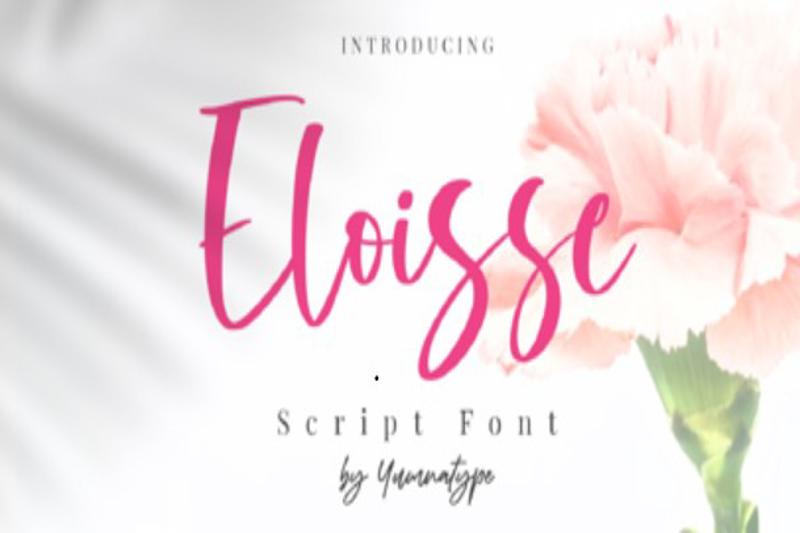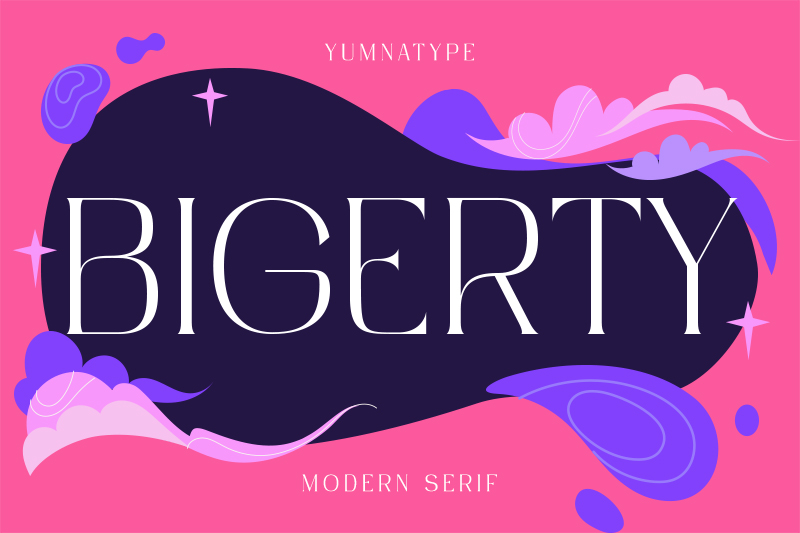
Elegant and Romantic Font for Wedding Invitations: 12 Best Picks
Have you ever seen a wedding invitation that impressed you? The secret often lies not in a complex design, but in the right choice of font for wedding invitations. The right font selection can create an elegant, romantic, or even luxurious feel that can impress the guest even in a quick glance.
Choosing a font for wedding invitations isn’t only about aesthetics but also an important process in building a memorable first impression. A wedding invitation becomes the first representation of your sacred moment. Thus, every visual detail should be able to harmoniously convey nuances of love, warmth, and beauty.
The right font can enhance the look of your wedding invitation, making it more classy without being overly designed. On the other hand, an improper font choice can make your invitation look normal and unimpressive.
So, what font is suitable for a wedding invitation design? This article will discuss the best font recommendations that are visually appealing and can enhance the elegant and professional impression of your invitations. Find the best font inspiration that is ready to make your invitation look captivating.
Carlista Script
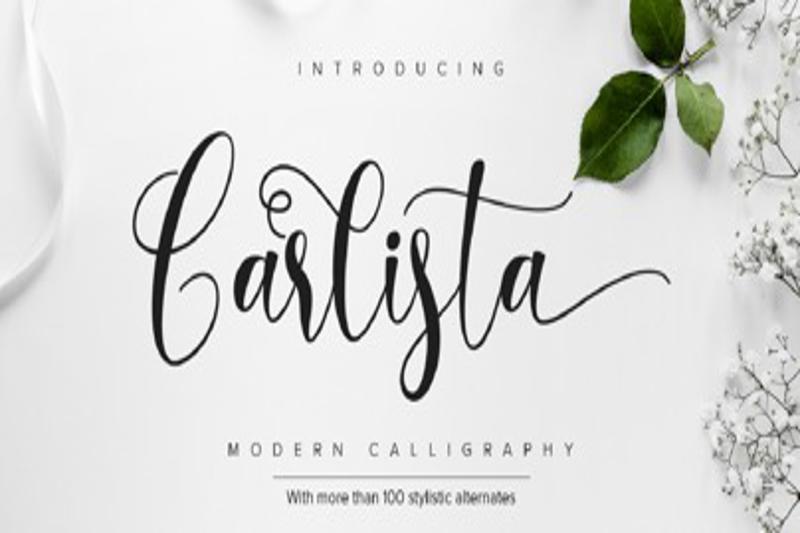
Carlista is a font for wedding invitations with a gentle handwriting style. It blends elegant strokes and artistic details that captivate the eye. Also, it features soft curves, long tails, and a supple character that lends a strong, romantic touch to various wedding design concepts.
This font is suitable for a classic-themed wedding invitation design or a garden-themed wedding that emphasizes elegance, warmth, and class. It features nine ligatures and one hundred and twelve alternates and swashes that give high flexibility in creating attractive typography variations.
Brigtia Lovely Swash Font
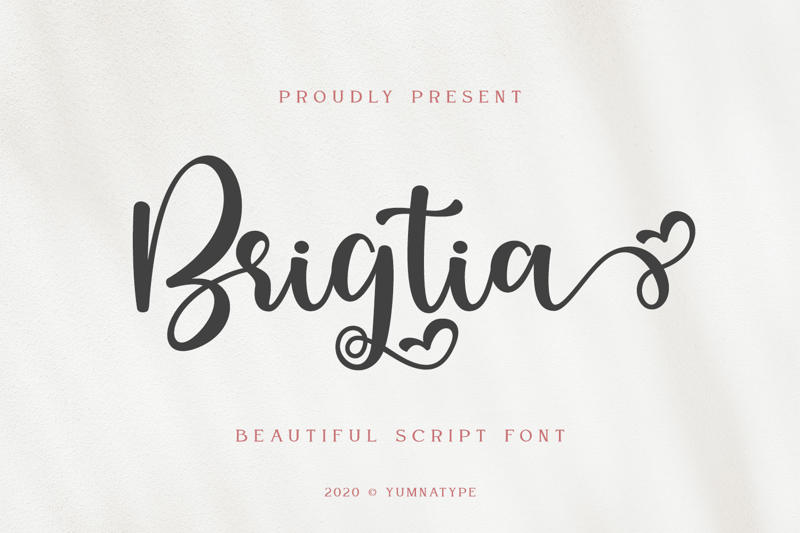
If you want a more decorative look, try the Brigitia Lovely Swash Font. It has a soft, graceful, handwritten character that has heart ornaments, giving a romantic nuance. The swash detail in each letter presents a luxurious nuance and an artistic touch.
Various additional features include ligatures for a more natural letter connection, alternates with beautiful tail variations, and decorative elements at the beginning and end of the characters. Moreover, it supports various languages for a wider use. This combination makes Brigtia suitable as a font for wedding invitations, greeting cards, and souvenir packaging.
Angelia–Lovely Script
Angelia presents a beautiful, graceful, and captivating modern script style, making it a perfect font for wedding invitations. The balanced thin and thick line contrast enhances the graceful and romantic impression in every letter’s detail. The naturally flowing ligature touch presents a luxurious and warm nuance, making it flexible for various wedding themes.
Angelin Heart
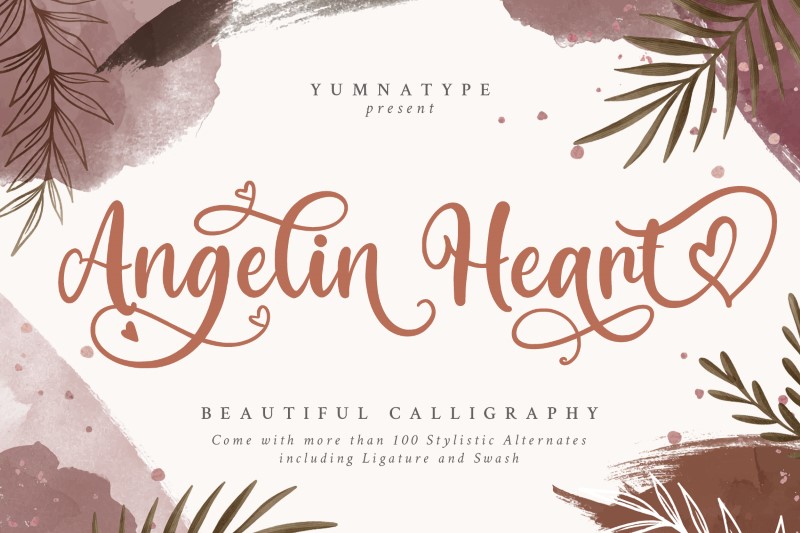
As its name suggests, Angelin Heart exudes a lovable warmth. This font is a modern calligraphic with a script style and soft strokes that resemble a handwritten letter. Every letter presents an elegant, warm, and feminine nuance with the addition of a heart-shaped swash that makes it look romantic. Angelin Heart is a flexible font for wedding invitations or various wedding elements, such as RSVP cards and elegant and romantic decorative details.
Bridge Inspire
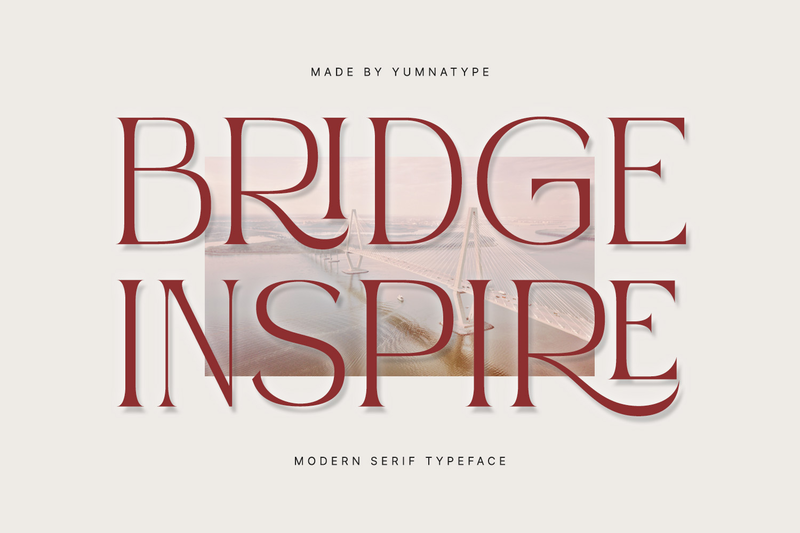
This font, Bridge Inspire, has a modern, clean, and minimalist serif that makes it a captivating, elegant, and sophisticated font for wedding invitations. Every letter in Bridge Inspire features a bold line and subtle serif detail, creating a minimalist yet strong and characterized style. Its main strength lies in the clear letter contrast, providing visual depth. On the other hand, its thin weight provides a soft, refined touch for your designs.
Canoliga
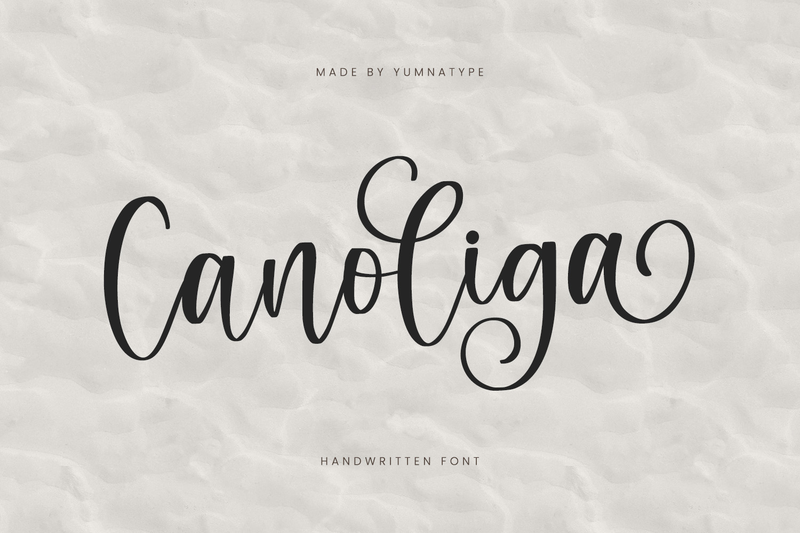
Canoliga is a font for wedding invitations with an elegant handwritten style. Through its naturally connected letterform, it presents a classic and romantic nuance. Each character has a soft stroke, thin line, and balanced contrast, creating a soft, proportional, and readable look.
With an elegant curved line and flowing handwritten letter, Canoliga is suitable for use in various wedding elements such as outdoor or rustic wedding decorations and RSVP cards. This font helps create a consistent, classy, and personalized look in every detail of wedding design.
Crofelo Delight
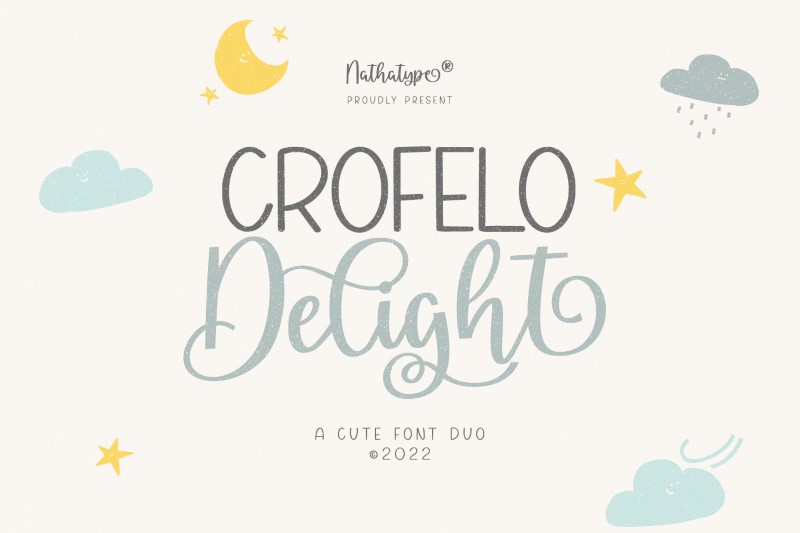
If you want an elegant and romantic wedding design, Crofelo Delight is one of the suitable choices. This is a font duo that blends a soft, cute script with a neat display. Its script features elegant swashes with a decorative touch, making it look more expressive and dynamic yet still graceful. Meanwhile, the display font presents a clean, neat, and readable letterform, creating a modern impression that remains harmonious.
The right typography combination enhances the design and helps every guest create a memorable first impression. That’s why you have to ensure the font selection is both visually aesthetic and capable of representing your desired wedding nuance.
Have you found your favorite font for your wedding invitations? Choose and combine the most suitable font with your wedding themes to look more elegant, romantic, and unforgettable.